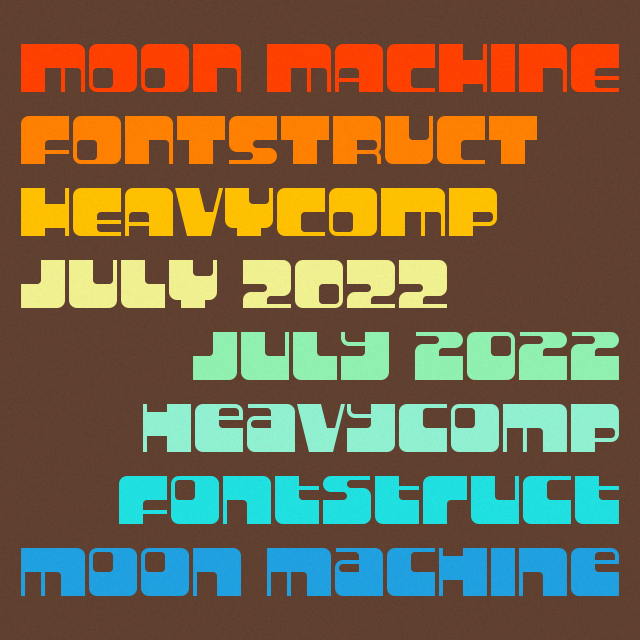
Moon Machine A
by V. Sarela (Yautja)
HeavyComp entry
Absolutely love the ever-so-slight difference between the "E" and "e"~
@elmo I also prefer B, this just happened to be the first one so it got entered into the competition.
Dreamcast vibes ?